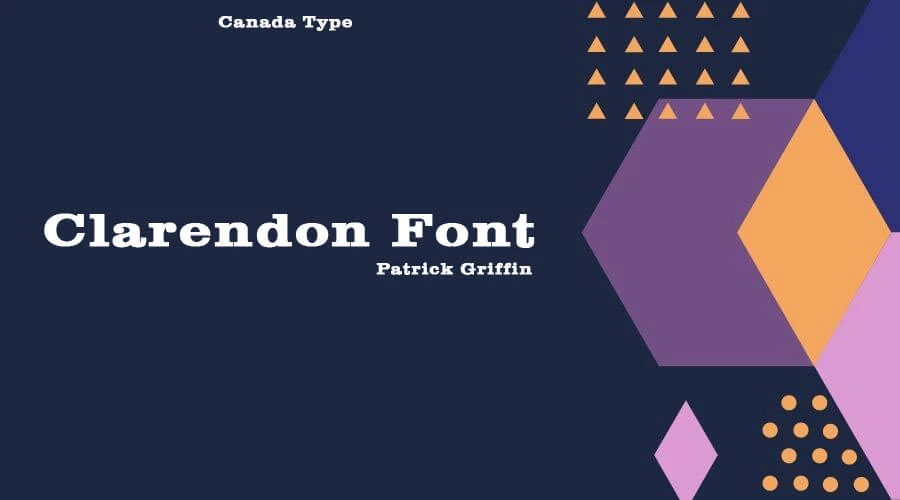
Clarendon font is a slab-serif typeface designed by Robert Besley and released in 1845 by Thorowgood and a letter foundry often known as the Fann Street Foundry. It was originally engraved by punchcutter Benjamin Fox, who may also have contributed to its design. With 14 styles and 462 glyphs, Clarendon is an eye-catching and elegant font. Many copies, adaptations, and revivals have been released, becoming almost an entire genre of type design.
Clarendon has a bold, solid structure, similar in letter structure to the “modern” serif typefaces popular in the nineteenth century for body text, but bolder and with less contrast in stroke weight. Clarendon designs generally have a structure with bracketed serifs, which become larger as they reach the main stroke of the letter.